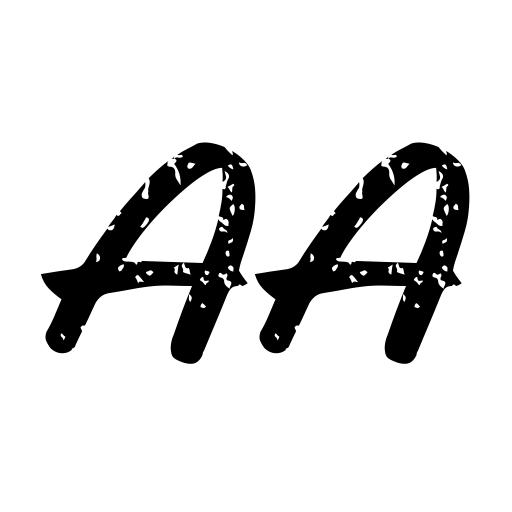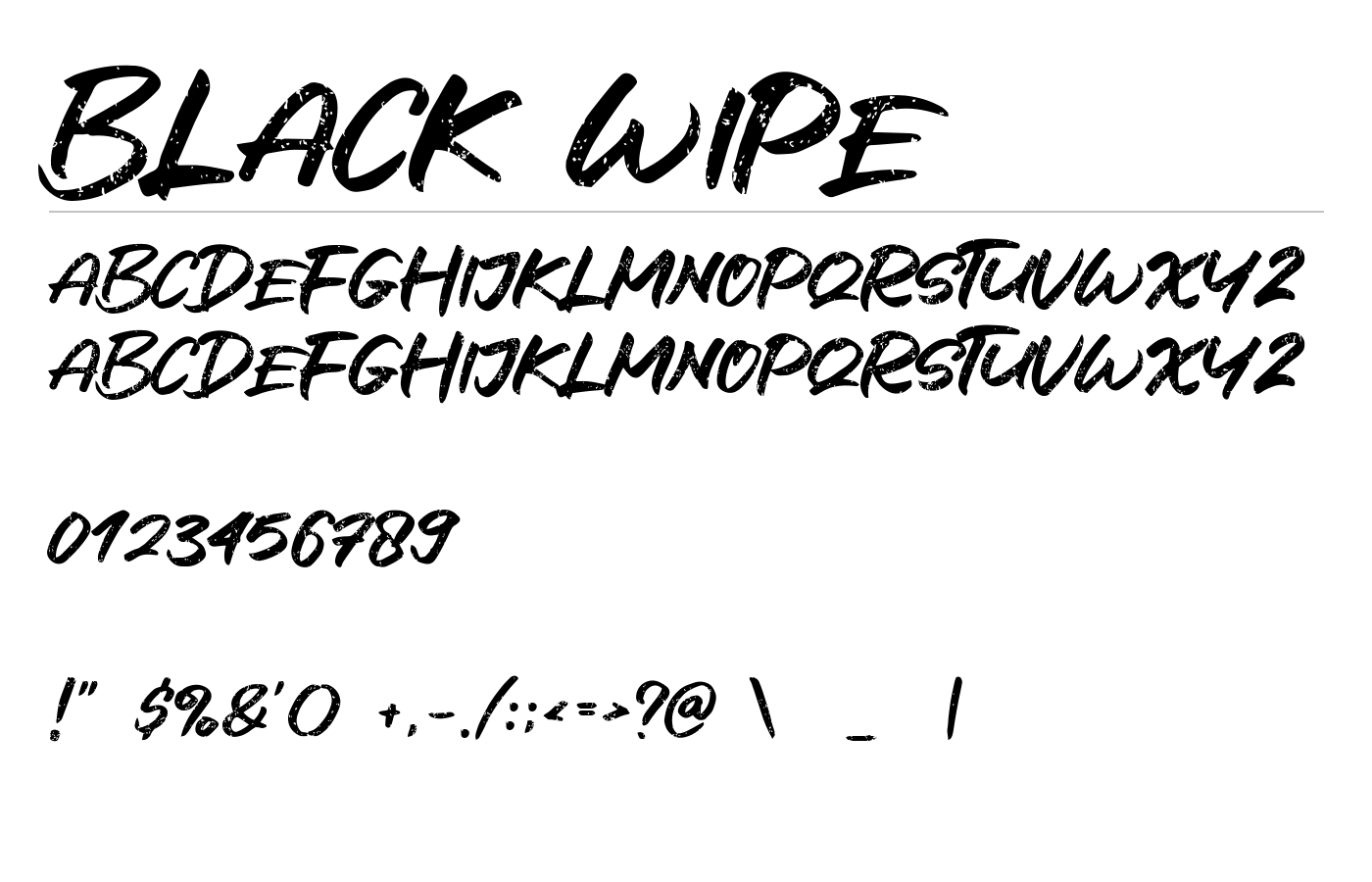
Black Wipe is a bold, brush-script font with a textured, hand-painted style that conveys energy and dynamism. Its rough edges and casual strokes make it ideal for creative, urban, and expressive designs such as logos, posters, and social media graphics where a raw, authentic feel is desired. This font stands out with its lively personality, adding a sense of movement and spontaneity to any project.
Black Wipe Font
About Black Wipe Font